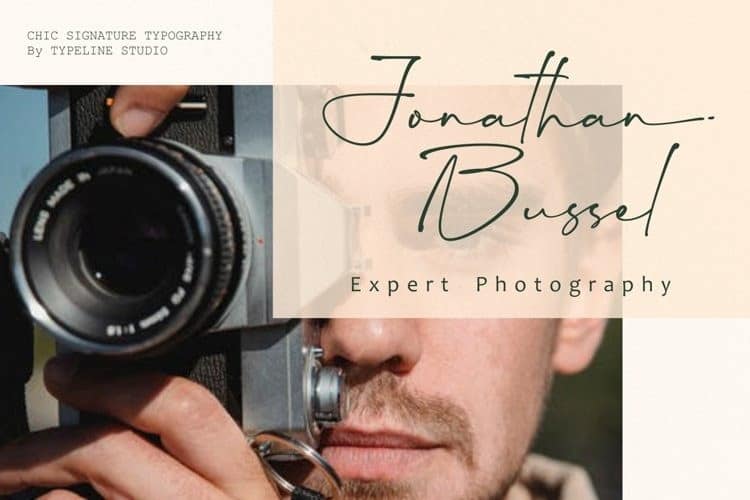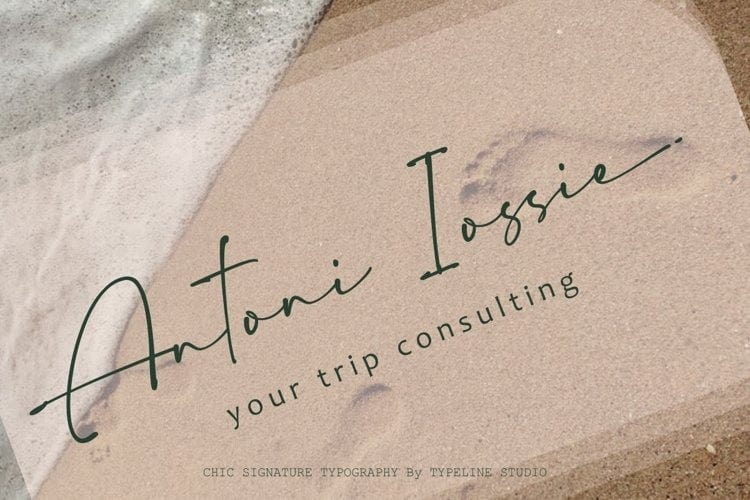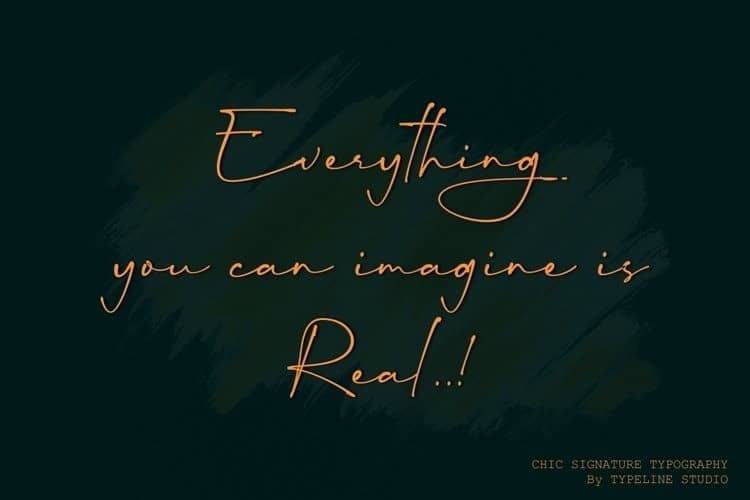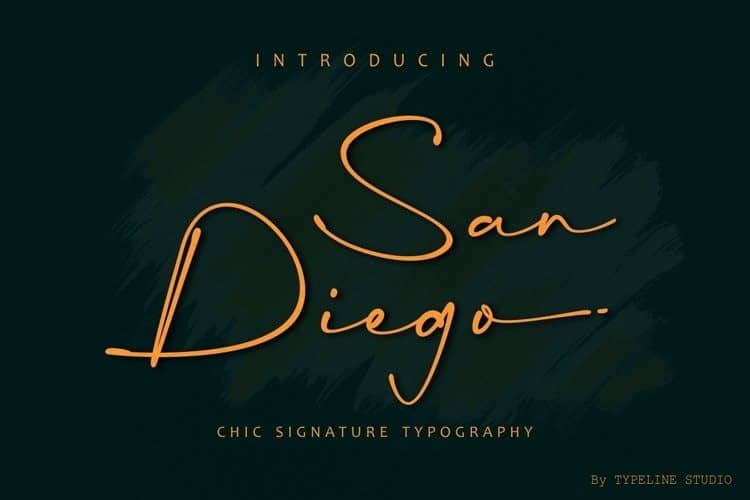
San Diego Handwritten Font
San Diego Handwritten Font is a type of handlettering font made with several advantages that can add different nuances to your work. Smooth Lines, Stunning alternates and Ligature. This font is Fabulous choice for a wide range of projects including Quotes, Book Covers, Logos, Branding, etc.